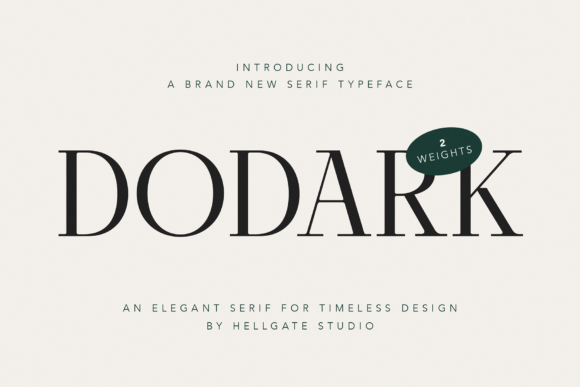
Introduction to Dodark Font
Dodark Elegant font is the embodiment of class and innovation in typeface design.
This font effortlessly merges boldness and strength, making it the ideal choice for a modern theme Dodark Elegant is easily customizable; modify the text and color to your preference, exploring endless possibilities.